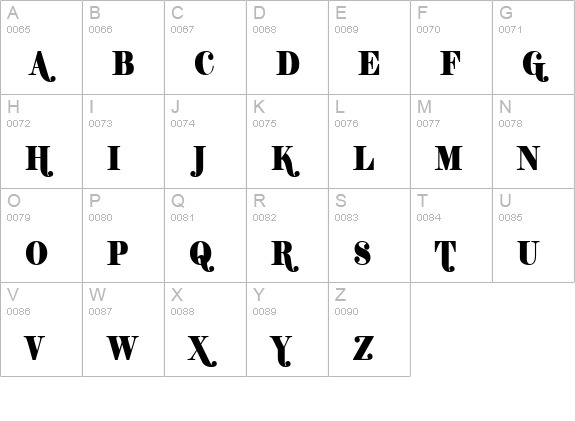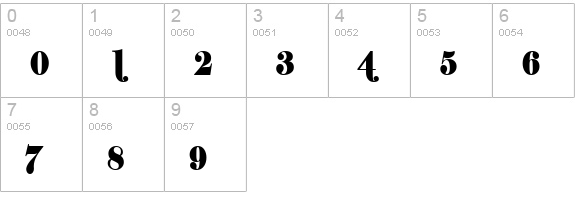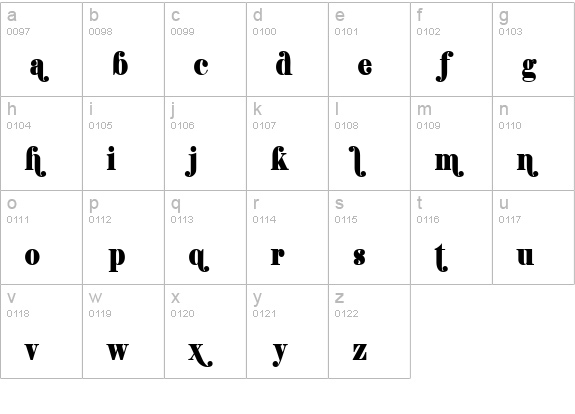
Introducing Shifty Chica font, a playful and charismatic typeface that will add a touch of whimsy to any project. With its unique and dynamic letterforms, Shifty Chica captures the essence of fun and mischief, making it perfect for designs that aim to stand out from the crowd. This font is freely available to download at FontsMarket.com, offering you the opportunity to bring a sense of playfulness to your creative endeavors without breaking the bank. Whether you're designing a logo, poster, or website, Shifty Chica will effortlessly inject a dose of personality into your work. With its bouncy baseline and charming curves, Shifty Chica brings a sense of liveliness and energy to every character. The uppercase letters are bold and eye-catching, while the lowercase letters have a quirky and whimsical feel. The combination of these two styles creates a delightful contrast that adds depth and visual interest to your designs. Shifty Chica is incredibly versatile and can be used in a variety of contexts. Its legibility and distinctiveness make it suitable for headlines, titles, and branding projects. Additionally, it is equally well-suited for more creative applications, such as invitations, greeting cards, and social media graphics. This font is thoughtfully designed with attention to detail, ensuring that each character seamlessly fits together to create a cohesive and visually pleasing result. Whether you're a seasoned designer or just starting out, Shifty Chica is easy to work with, enabling you to bring your creative visions to life effortlessly. So why wait? Unleash your creativity and download Shifty Chica font for free at FontsMarket.com today. Let this playful and charismatic typeface become a valuable addition to your font collection, and watch as it brings a touch of whimsy and charm to your designs.